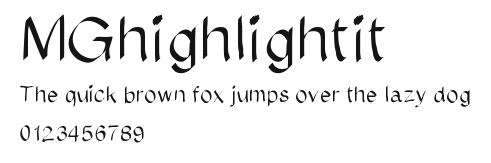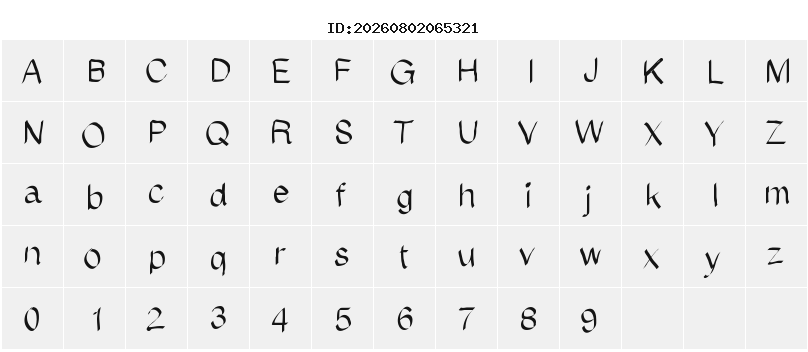
MGhighlightit Preview
• Font Name: MGhighlightit
• Font ID: MonroeGreco:MGhighlightit
• Full Font Name: MGhighlightit
• PostScript Name: MGhighlightit
About MGhighlightit.ttf
MGhighlightit.ttf is a modern, elegant sans-serif font designed for ultimate readability and visual harmony. Perfect for branding, headlines, web design, and print materials.